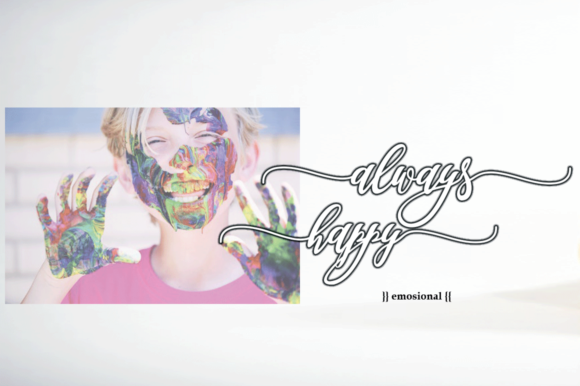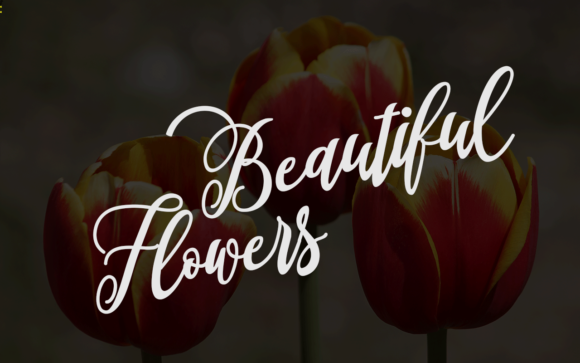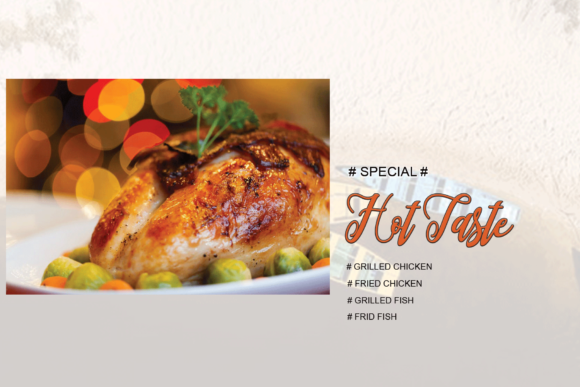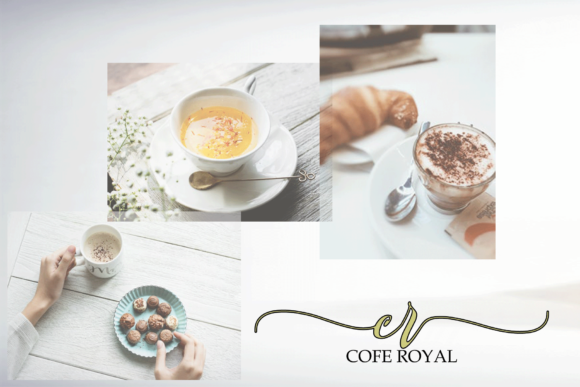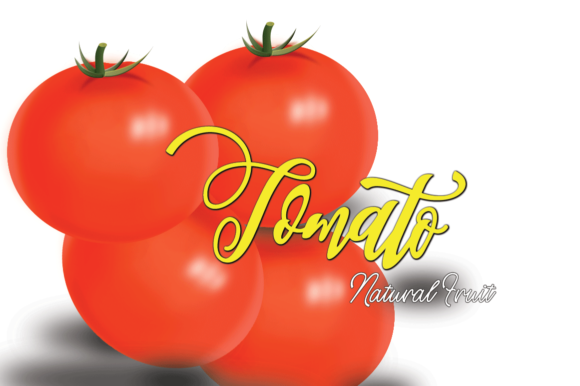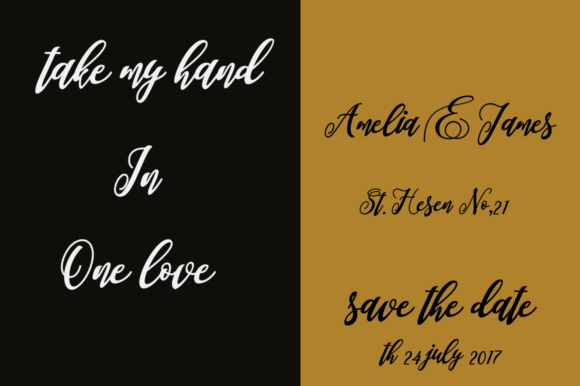
Turkeye Font
About Turkeye Font
Turkeye is an elegant handwritten script font.
It features stunning alternate characters which will add an elegant touch to your work. You can use this font for many purposes, both for personal projects such us invites, birthday cards, and for business related projects such as headings, logotype and more.